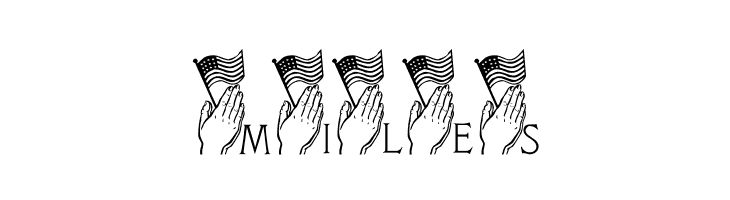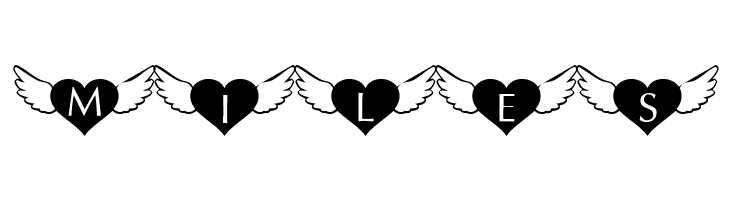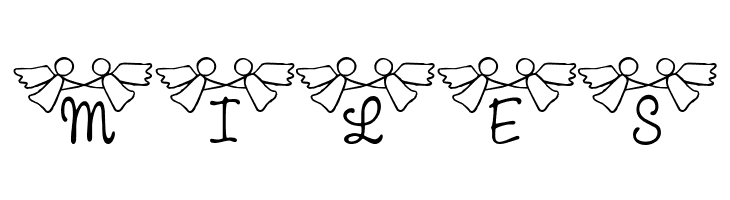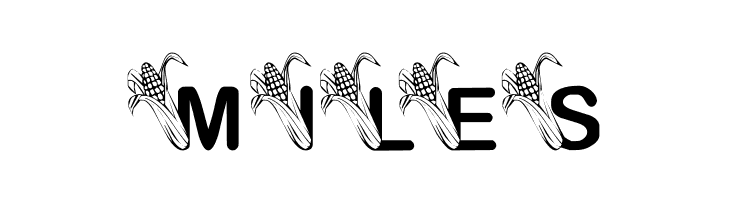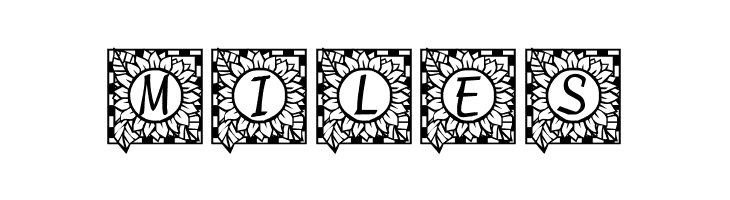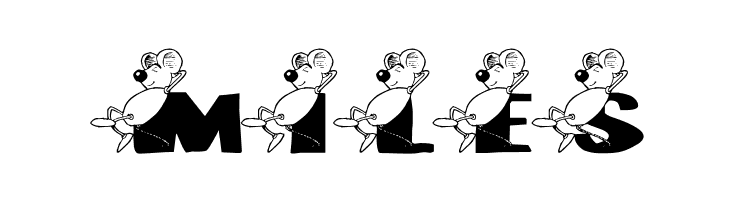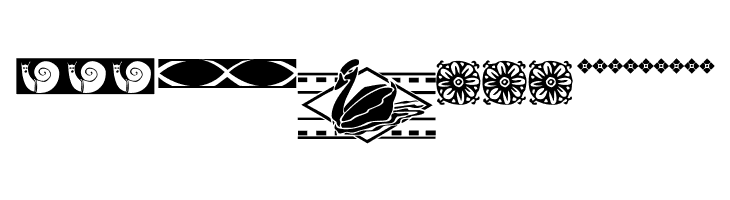
A serif font with patriotic and spiritual imagery of flags and praying hands.
A whimsical font with characters enclosed in heart shapes with wings.
A whimsical font with each character adorned by playful angels.
A decorative font with bold letters and corn motifs, perfect for autumn-themed designs.
A decorative font with characters encased in sunflower-themed borders.
A playful font with bold letters and cartoon mouse illustrations.
A decorative border and dingbat set with assorted intricate motifs.